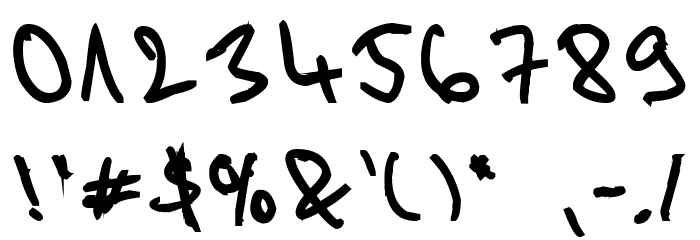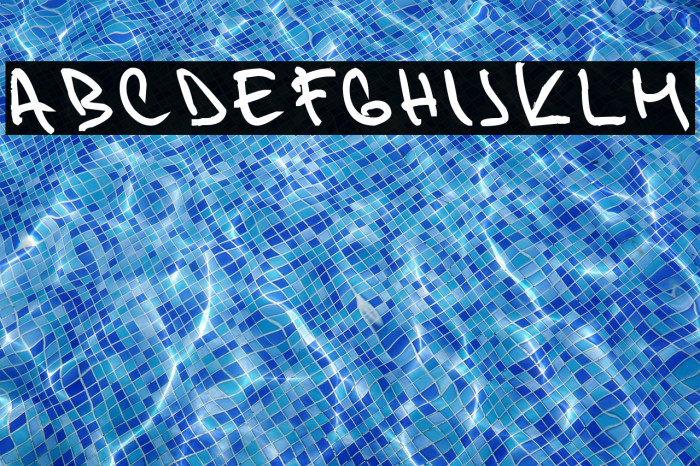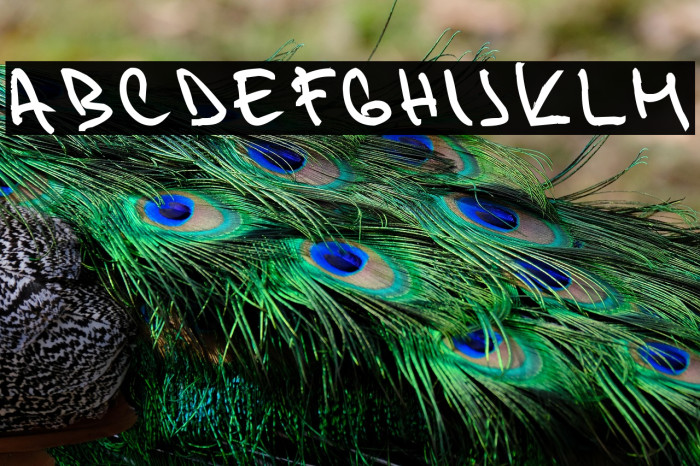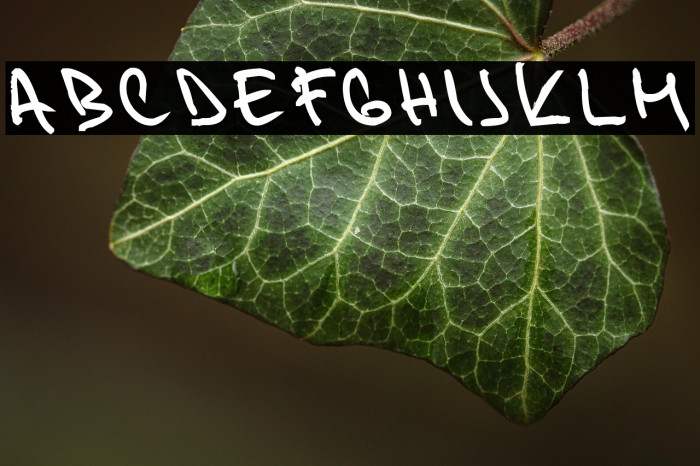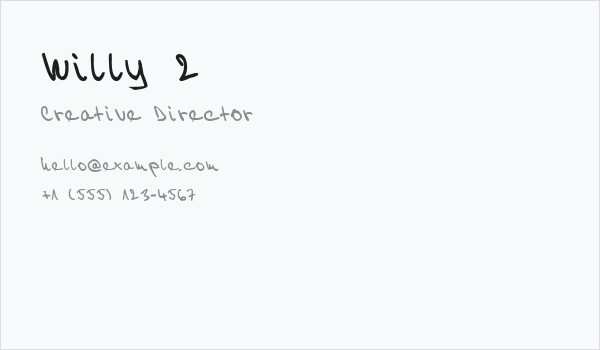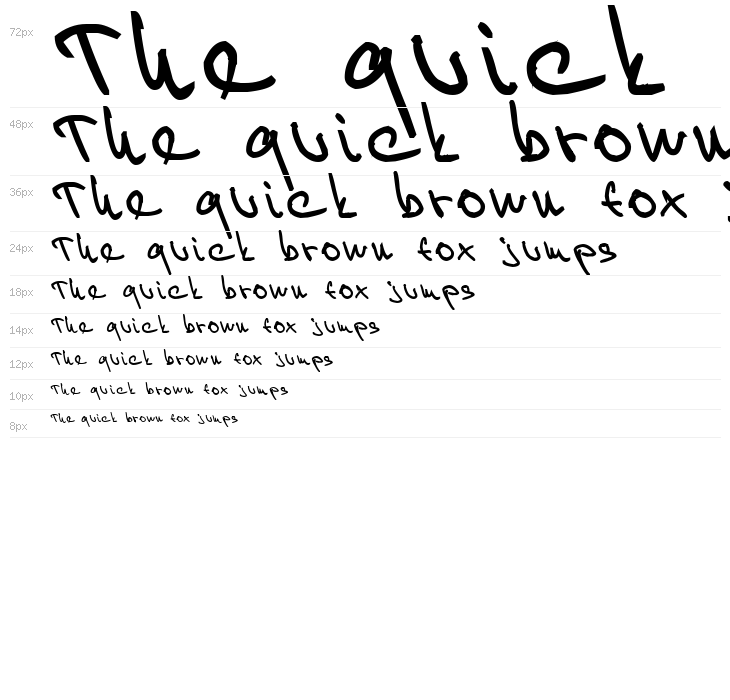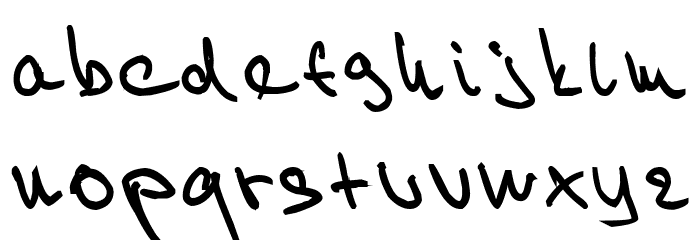
Willy 2 Font
Willy 2 Description
This font exudes a casual and playful handwritten style, characterized by its irregular strokes and informal appearance. Each letter is distinct, with a slightly uneven baseline that adds to its charm. The uppercase letters are bold and assertive, while the lowercase letters maintain a consistent flow, enhancing readability. Numbers and special characters follow the same playful aesthetic, making them suitable for creative projects. The overall design is reminiscent of a personal note or a quick sketch, perfect for conveying a sense of spontaneity and creativity.